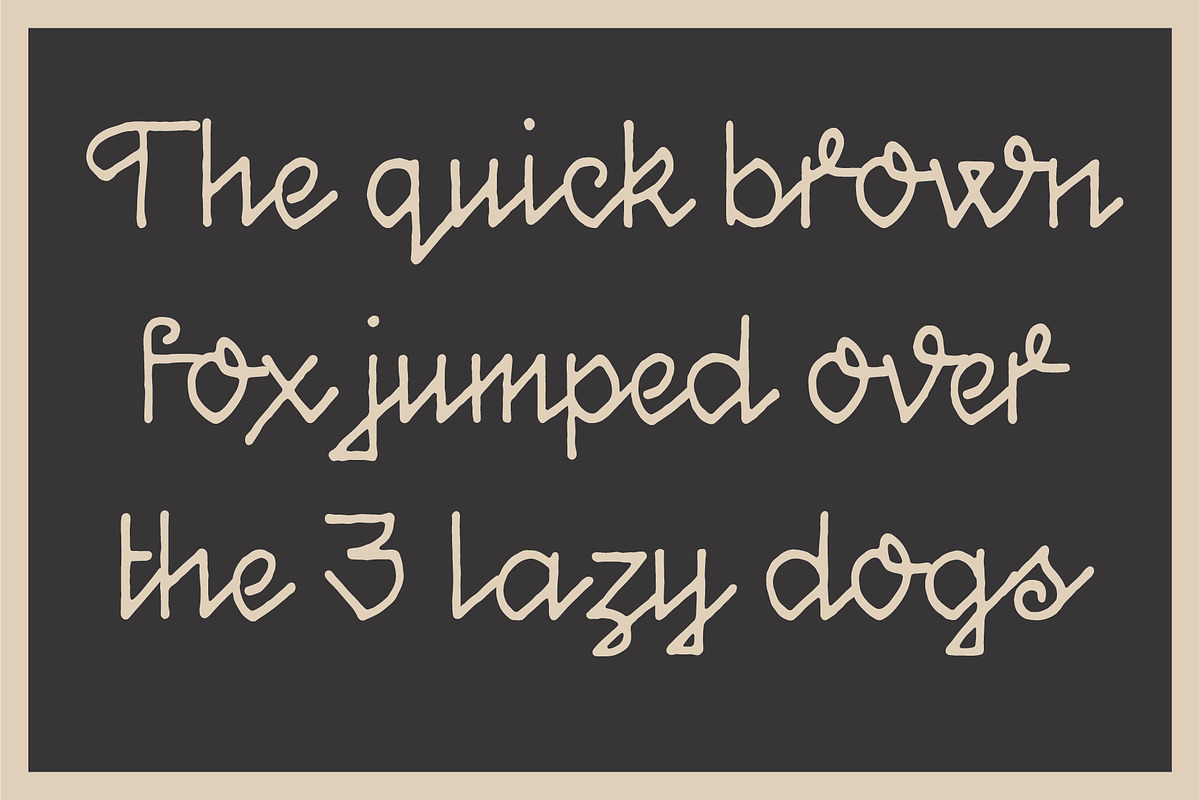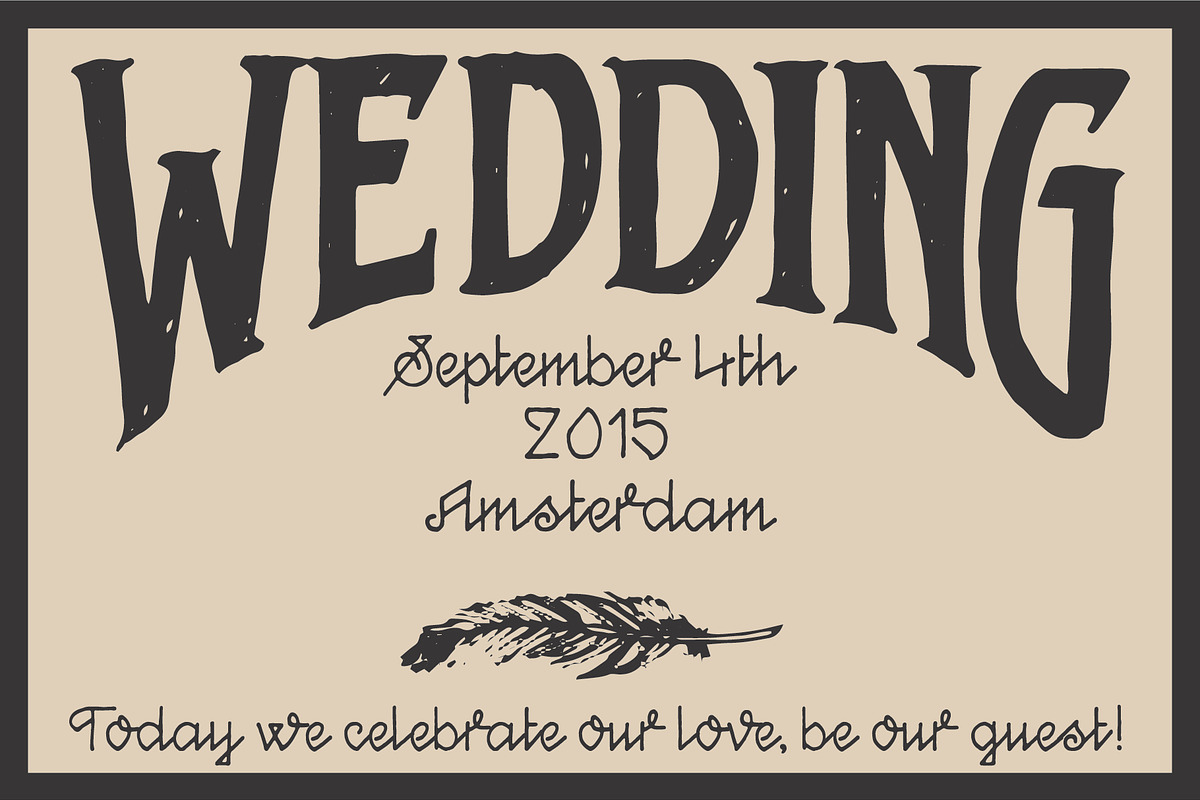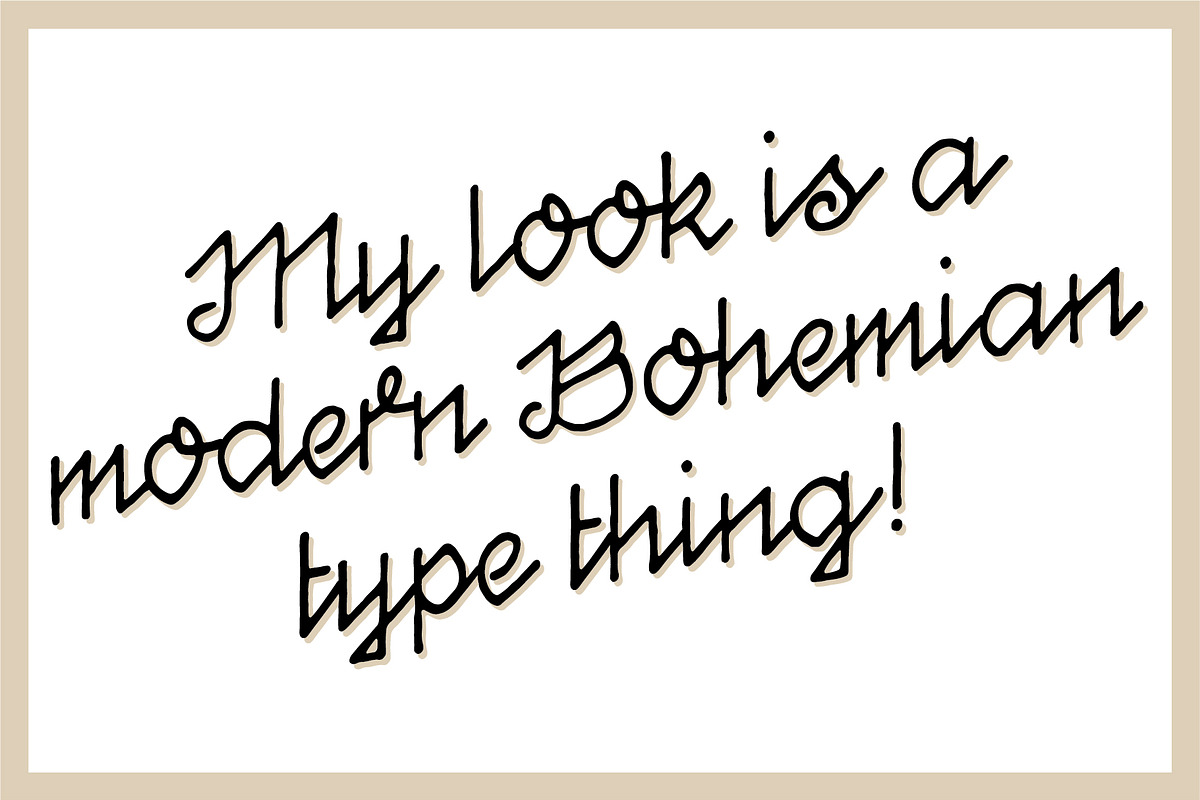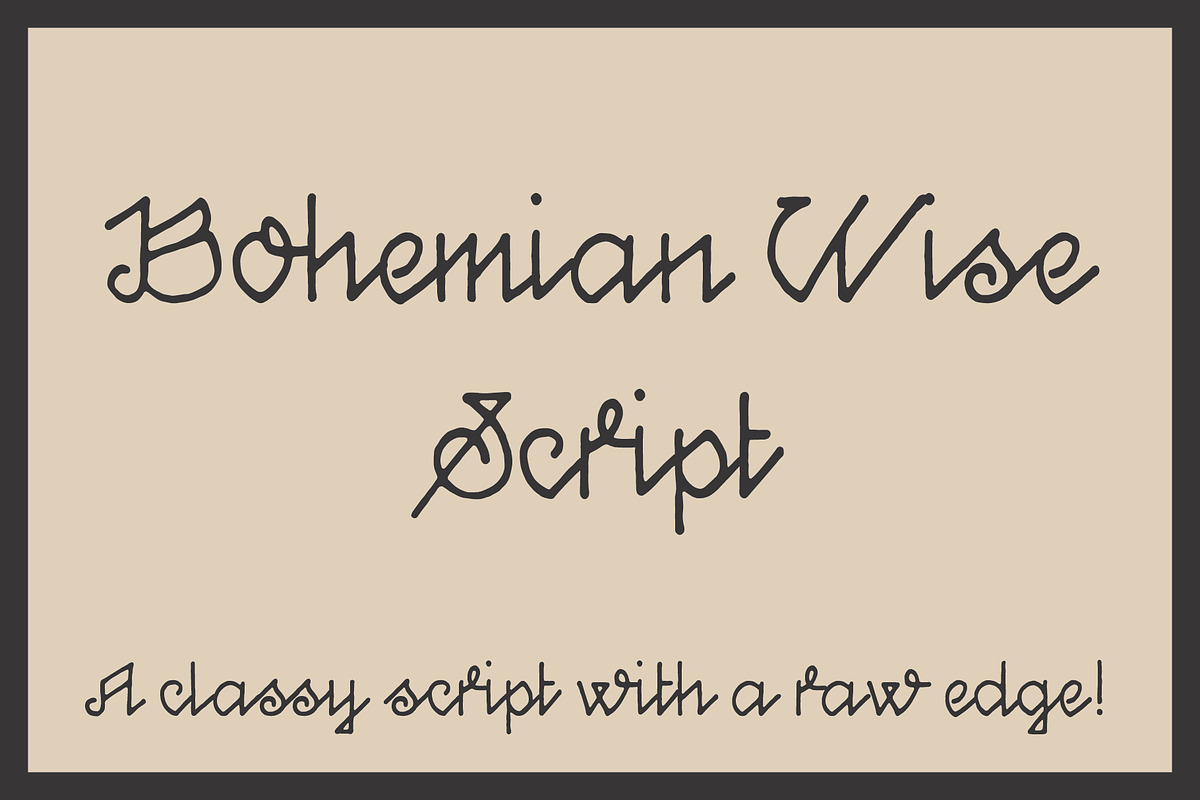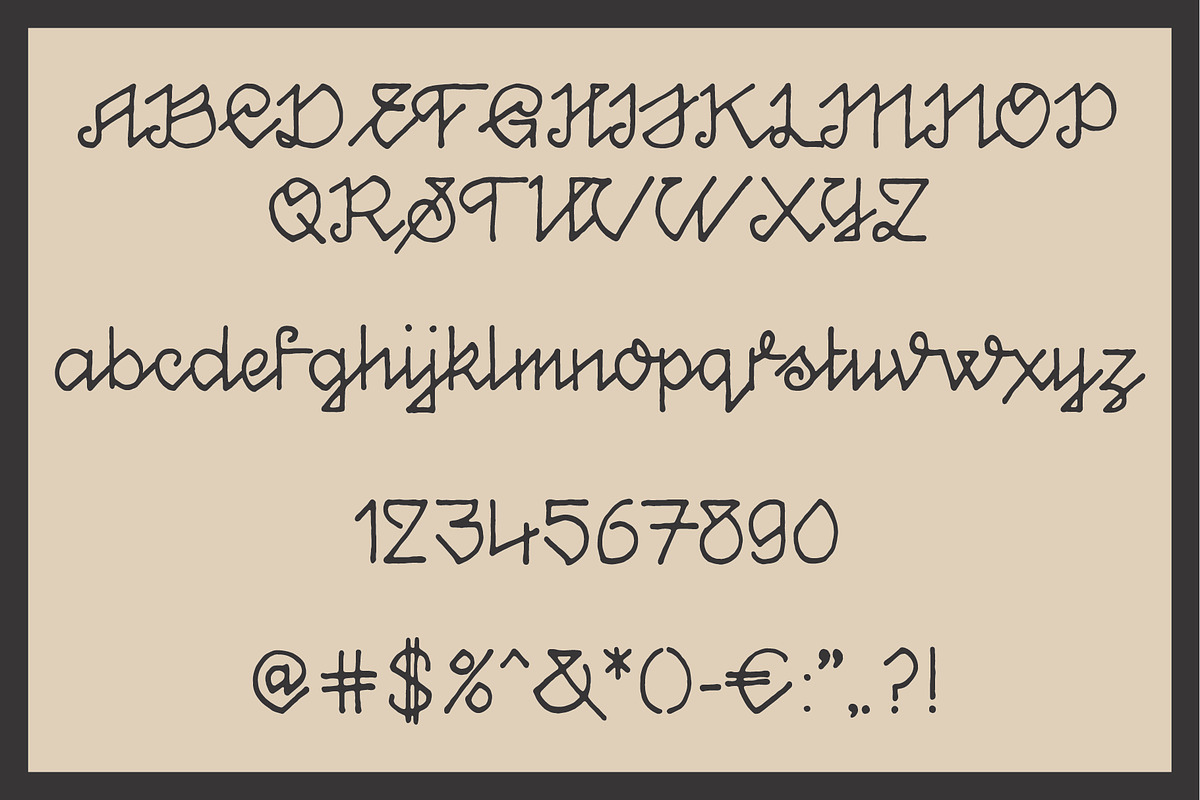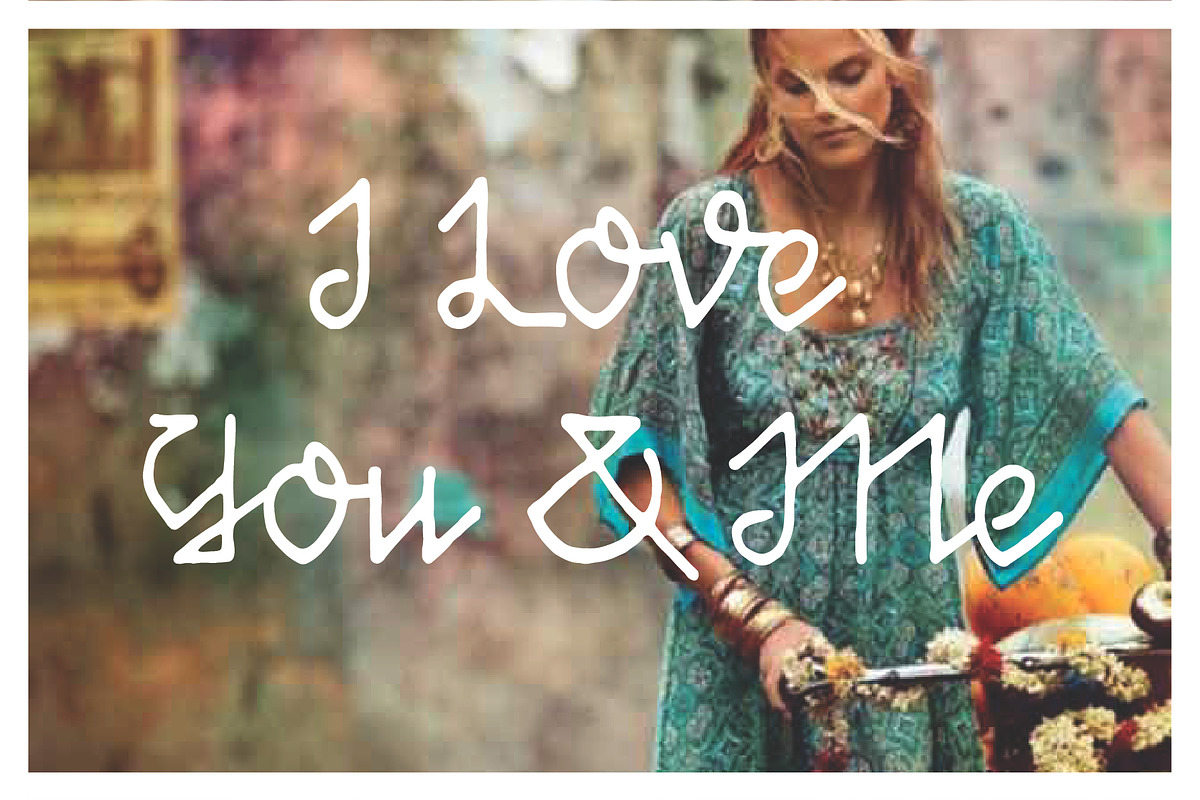
Bohemian Wise Script
I proudly present my new hand lettered font: Bohemian Wise Script. It has a very classic feel and it's perfect for communicating in and fun an loose way but still maintaining a professional feel. Class with a raw edge sort of speak!
Bohemian Wise Script by Shon Price Fonts fits naturally into Branding, posters, packaging, typography.